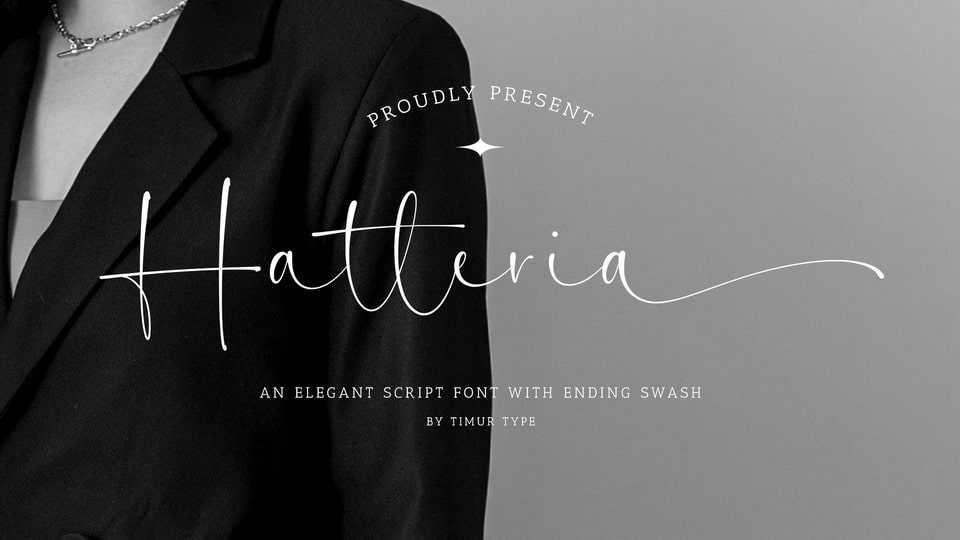
Download Hatteria font, an exquisite handwritten script with an elegant and distinctive appearance. With intricate details and subtle strokes, Hatteria font adds a touch of sophistication and elegance to any design or text it is applied to.
Designer: Timur Type